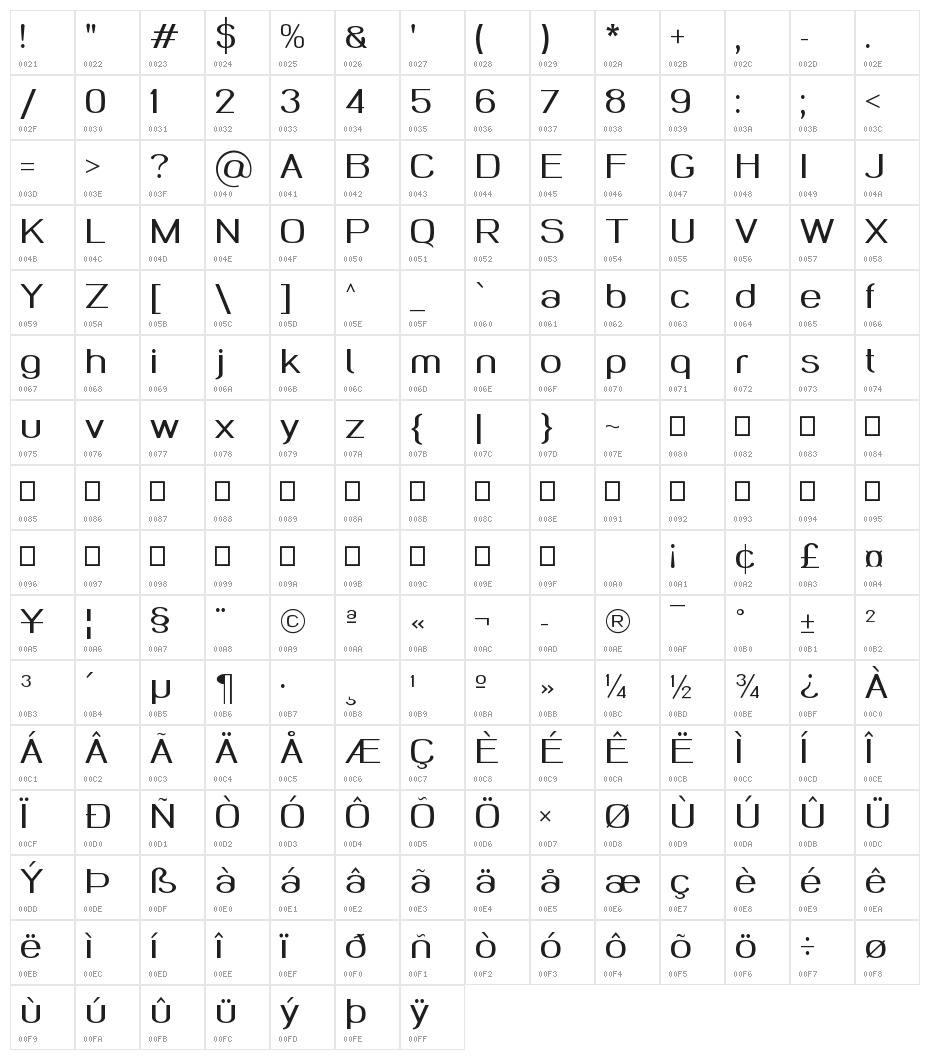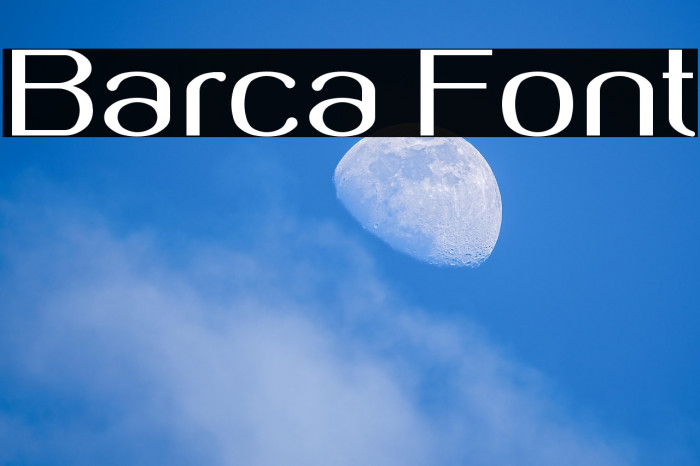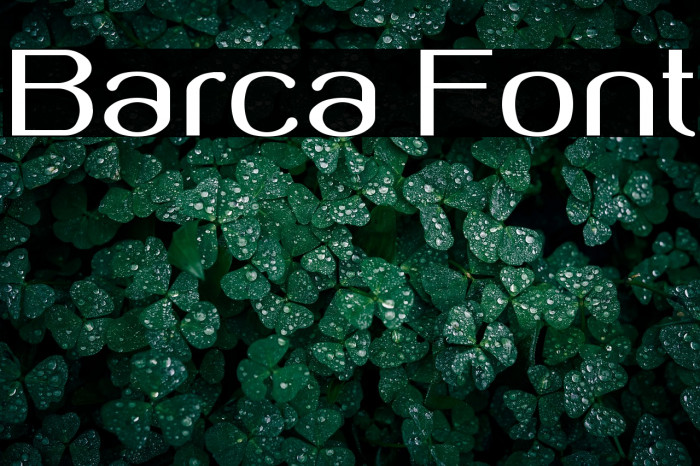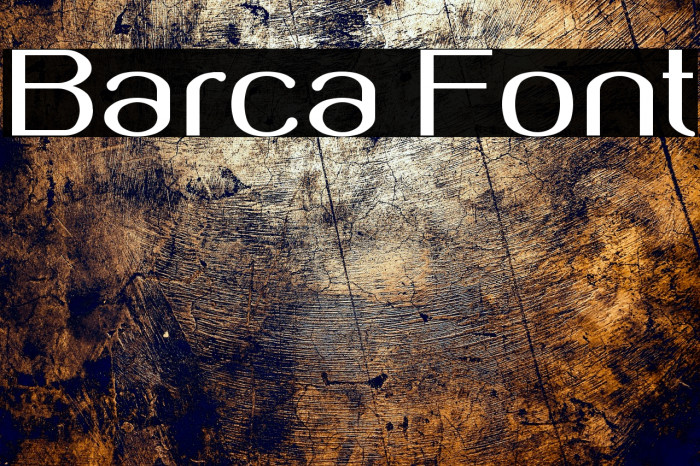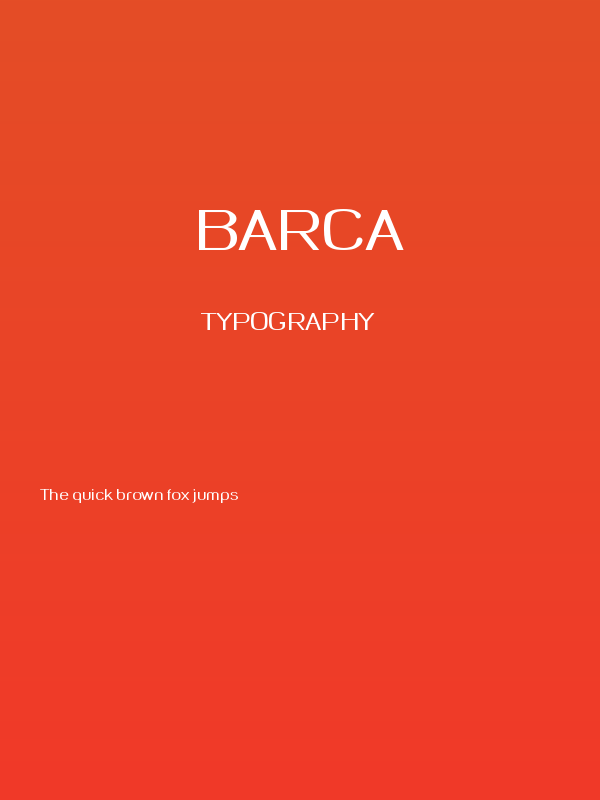
Barca Font
Barca Description
This font features a clean and modern sans-serif design, characterized by its geometric shapes and uniform stroke widths. The uppercase letters are bold and assertive, while the lowercase letters maintain a consistent style with rounded edges that soften the overall appearance. The numerals are clear and legible, making them suitable for a variety of applications. Special characters are well-integrated, maintaining the font's cohesive look. The font's simplicity and clarity make it versatile for both digital and print media.
| Use Case | Headlines, Body text, Logos |
| Proposed Projects | Ideal for branding, advertising, web design, and editorial layouts. |